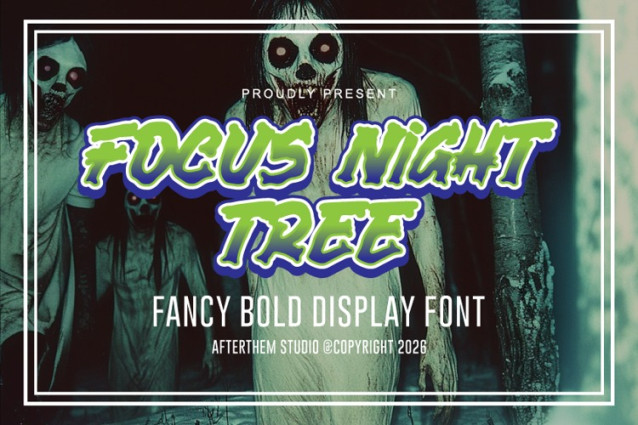
Focus Night Tree Font
Focus Night Tree Font is a simple and modern display font suitable for quotes, logos, headings, titles, and many more. Use it on any of your creative projects, and your designs will become outstanding!